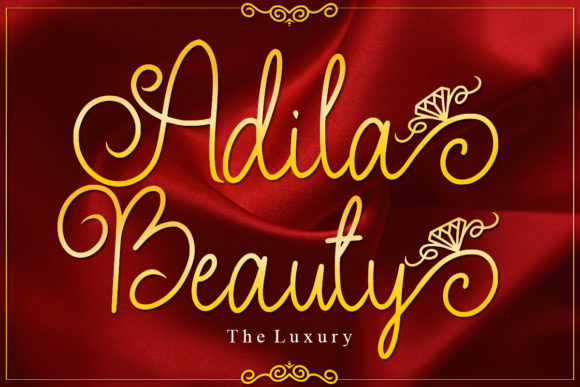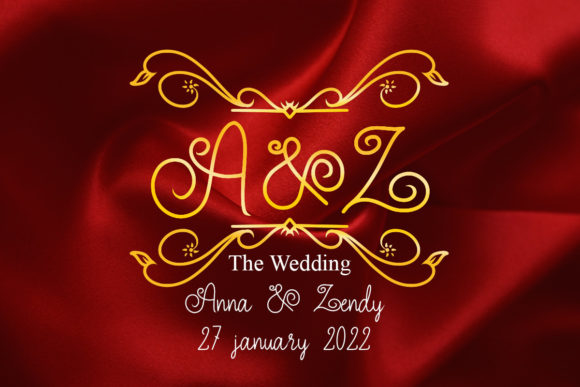
25+ Best Wedding Fonts for Elegant Invitations & Branding – Curated by a Designer
There is something magical about wedding design. Every curve, every texture, every detail carries emotion. And if there is one element that truly sets the mood, it is the typography.
I have been a designer for years, and I still get excited when a couple trusts me to bring their vision to life. The fonts I choose become the voice of their love story—whether it is elegant and timeless on a invitation suite, playful and modern on a welcome sign, or soft and romantic on a thank-you card.
Over time, I have built a collection of go-to typefaces that never disappoint. Fonts that dance along the baseline. Fonts that feel handwritten with care. Fonts that turn creative ideas into art.
Today, I am sharing some of my favorite Wedding Fonts with you. These are the ones I keep coming back to—tested, trusted, and loved across real projects. Whether you are designing for a client or crafting something personal, I hope these finds inspire your next beautiful creation.
1. Romeo Wedding Font
Romeo Wedding Font
Looking for the perfect Wedding Fonts for your next project? Let me tell you why Romeo Wedding is always in my toolkit. As a designer, I need scripts that look genuine, and this calligraphy font delivers that natural ink-on-paper feel. It’s incredibly versatile for branding, looking just as elegant on a logo as it does on a wedding program.
The key advantage here is the easy access to all the special characters. Because it’s PUA encoded, I can quickly add those unique ligatures to my posters or digital books without any software fuss, making every layout look polished and professional.
2. Romance History Wedding Font
Romance History Wedding Font
If you’re building a brand or designing a wedding suite, you need more than just one style—you need a system. That’s exactly what Romance History offers. As a designer, I appreciate font duos because they do the hard work of matching for you.
This pair combines an elegant sans serif with a beautiful handwritten script, making it incredibly versatile for almost any project. It’s perfect for those looking for premium Wedding Fonts because it covers all the bases: the script brings the emotion for the big headlines, and the sans serif keeps the details clean and readable.
Whether it’s for printed materials, DIY projects, or luxury packaging, this duo makes your work look cohesive and thoughtfully designed.
3. Briansta Wedding Font
Briansta Wedding Font
Sometimes a project just needs that little bit of warmth. When I’m working on Wedding Fonts for a client, I want something that feels sweet but still professional. Briansta is my go-to for that. It’s a romantic handwritten font that instantly makes invitations or promotional materials feel more personal and luxurious.
What I really appreciate about this one is the craftsmanship. The kerning is already dialed in, which means I don’t have to spend hours manually adjusting the spacing—it just flows naturally right out of the box. Whether it’s for a save-the-date or a unique logo, it adds that spark without looking forced.
4. Tender Love Wedding Font
Tender Love Wedding Font
I have a soft spot for fonts that don’t shout for attention. Tender Love is one of those quiet, elegant typefaces that just feels sincere. It’s a distinctive handwritten font with a minimalistic design, which makes it incredibly versatile for adding a subtle, sentimental touch to projects.
When I’m curating Wedding Fonts for a client, I often pick this one for book covers or greeting cards because it breathes that authentic, handmade style without looking messy. It works beautifully on craft prints or t-shirts too. If you want your design to feel graceful and emotive without being overly decorative, this is the one.
5. Lettifa Cute Wedding Font
Lettifa Cute Wedding Font
I used Lettifa Cute for those winter projects that need a little extra warmth. It is a script font with that cozy December feeling—perfect for Christmas greetings or holiday invitations. I recently used it for a winter wedding save-the-date, and it fit right in with the seasonal Wedding Fonts vibe.
What I love about this one is its versatility. Beyond the holidays, it works beautifully for fashion branding or skincare lines where you want a soft, friendly touch. The letters have a natural flow that feels hand-crafted but still clean enough for logos or posters. If you are designing anything with a festive, cozy soul—give this one a try.
6. Adila Beauty Wedding Font
Adila Beauty Wedding Font
I remember opening Adila Beauty for the first time and thinking—finally, a font that gets the brief. It is a classic decorative copperplate script with a modern twist, and I have used it on so many projects since. Vintage logos, fashion labels, custom card headers—it just fits.